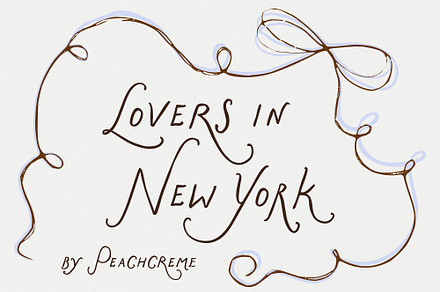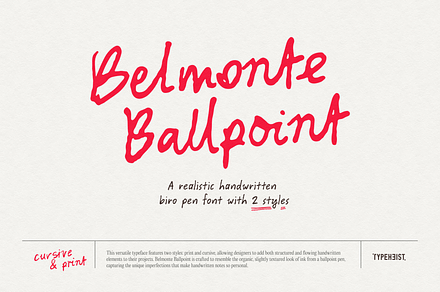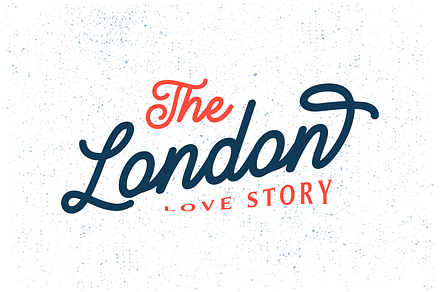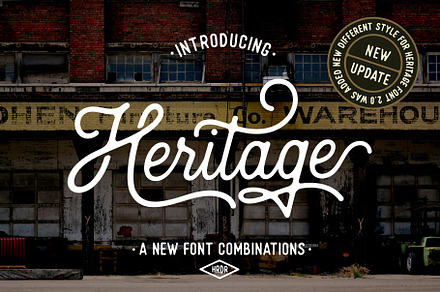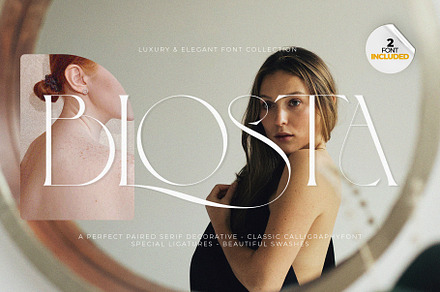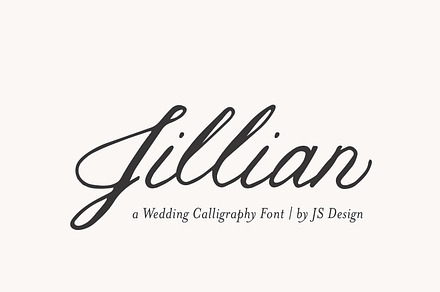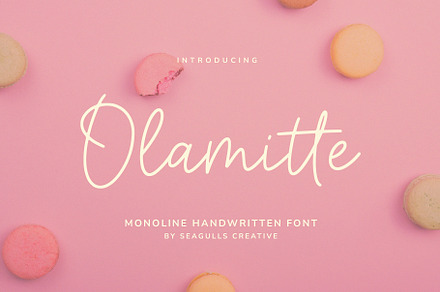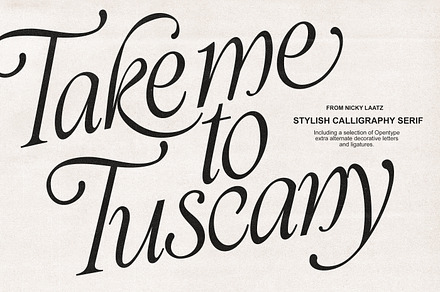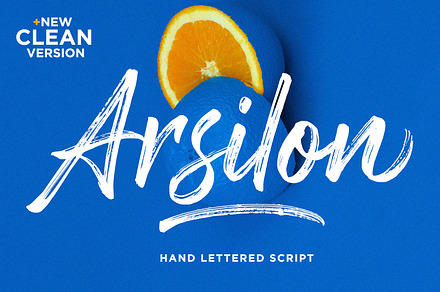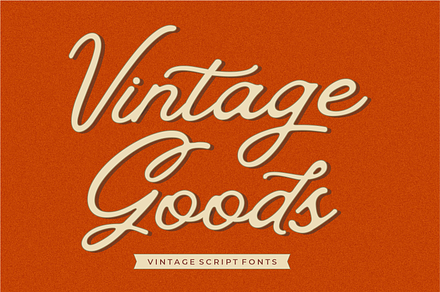
Inject a touch of genuine artistry into your next project by exploring the world of bespoke lettering. These scripts capture the unmistakable warmth of human handwriting, transforming simple text into evocative visual statements. Whether you require the formal flourish of classic calligraphy or the casual charm of modern brush strokes, our selection provides an unparalleled depth of style and emotion. They are ideal for creating memorable branding identities, sophisticated wedding invitations, book covers, and premium consumer goods packaging that demands a personal, hand-crafted touch.
The versatility within this collection allows designers to match the precise mood—from the structured romance of ornate swashes to the natural flow of monoline scripts. This range ensures perfect suitability for everything from luxurious fashion labels and historical editorial layouts to contemporary digital branding needs. The included fonts feature diverse moods, accommodating both vintage glamour and modern minimalism.
This curated collection features a rich array of stylistic options including: Lovers in New York, Belmonte Ballpoint Biro Pen Font, Brandon Smith - Monoline Font, Heritage Font Combinations, BLOSTA Font Duo//Serif & Script, Jillian | Wedding Calligraphy Font, Olamitte Monoline Handwritten Font, Take Me To Tuscany Typeface, Arsilon (New Update Clean Version!), and Vintage Goods Script.
Lovers in New York
Searching for elegant and memorable typeface solutions for branding or custom printing? Lovers in New York captures a captivating, hand-drawn aesthetic perfect for personalized touchpoints like sophisticated invitations and premium label design. The blend of lively, flowing script with surprisingly crisp readability creates remarkable tension—balancing carefree style with structural refinement. Its ability to manage body text rhythm while incorporating impactful decorative flares makes headline styling straightforward, providing instant Parisian charm for any wedding or creative editorial project requiring visible artistry.
Belmonte Ballpoint Biro Pen Font
Enhance your design projects with Belmonte Ballpoint Biro Pen Font. Offering distinct print and fluid cursive styles, this typeface captures the genuine look of ballpoint pen ink, giving digital documents an authentically hand-written touch. Use it to replicate casual notes, signature lines, or playful captions on various layouts. Designed with multilingual characters, dedicated glyphs for A-Z and 0-9, Belmonte Ballpoint delivers professional handwriting while adding unique scribbled accents through specialized shortcuts. Perfect for academic papers, invitations, or blogs needing personality.
Brandon Smith - Monoline Font
Need a versatile, clean sans-serif for modern branding and web use? Brandon Smith provides crisp, professional readability across both headline signage (Stamp) and flowing body copy (Regular). This sophisticated monoline typeface offers broad stylistic adaptability, including advanced glyph alternates perfect for giving your design personality. Excellent contextual swaps, extensive language support, and initial/final forms make Brandon Smith ideal for diverse digital and print applications requiring utmost polish.
Heritage Font Combinations
Achieve authentic vintage flair in any brand identity using Heritage Font Combinations. Pair the flowing elegance of its expressive script styles with the timeless clarity of its reliable sans-serif counterparts for exceptional depth. This versatile pairing proves perfect for detailed branding needs like creating memorable product logos, luxurious wedding stationery designs, or distinguished apparel lines. With robust glyph support, stylistic sets, and custom swashes available in both scripted and geometric manners, this combination guarantees typography that captures nostalgia while maintaining supreme modern readability across print mediums.
BLOSTA Font Duo//Serif & Script
Elevate your typography with Blosta Font Duo. This luxurious pairing combines an elegant decorative serif and sophisticated calligraphy typeface to transform your creative work. Use the blend of formal structure and sweeping, dramatic strokes perfect for designs needing a classical or upscale touch—think intricate logos, wedding stationery, embossed certificates, or premium book covers. Mastering unique font pairings is key to advanced graphic design; exploring professional typeface collections helps designers achieve polish in all media, making these beautiful serifs highly searchable resources.
Jillian | Wedding Calligraphy Font
For invitations, wedding signage, and luxurious stationery design, Jillian provides a quintessential hand-lettered calligraphy aesthetic. This elegant script balances decorative flourish with impressive readability, making it perfect for displaying headings and event addresses on formal announcements or customizable collateral. Use its comprehensive alternate beginnings and endings to give any brand logo, package labeling, or personalized website element an undeniably sophisticated touch. With detailed ligatures built in, professional designers can meticulously fine-tune text composition, ensuring every script moment remains highly impactful and gracefully styled across digital media and physical prints.
Olamitte Monoline Handwritten Font
Capture a warm, artisanal touch with Olamitte Monoline Handwritten Font. Its simple yet elegant cursive flow is ideal for any project needing personal flair, transforming generic designs into curated works of art. Utilize Olamitte for crafting rustic wedding invitations and high-end stationery. This charming monoline script proves exceptional in professional branding applications, adding a distinct handcrafted feel to product labels and sophisticated watermarks. It translates beautifully across design needs—perfectly complementing social media graphics, signature additions, or customized packaging—delivering timeless personalization in every letter stroke.